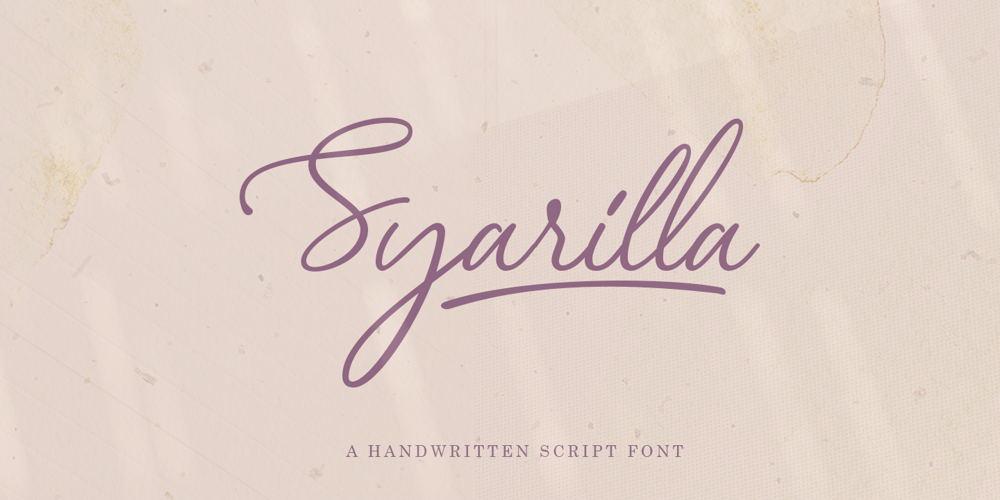
Syarilla
Syarilla font
Syarilla Font Family was designed by Gustian Agung Asprilla and published by Rillatype. Syarilla contains 1 styles and family package options. Introducing, Syarilla Handwritten Font. This font is suitable for you who needs a typeface for headline, logotype, quotes, apparel, invitation, branding, packaging, advertising, etc. to access the underline just type _ + (number 1-6) for example _1 _2 _3 etc.Features : uppercase & lowercase numbers and punctuation multilingual alternates / swashes and ligatures PUA encoded